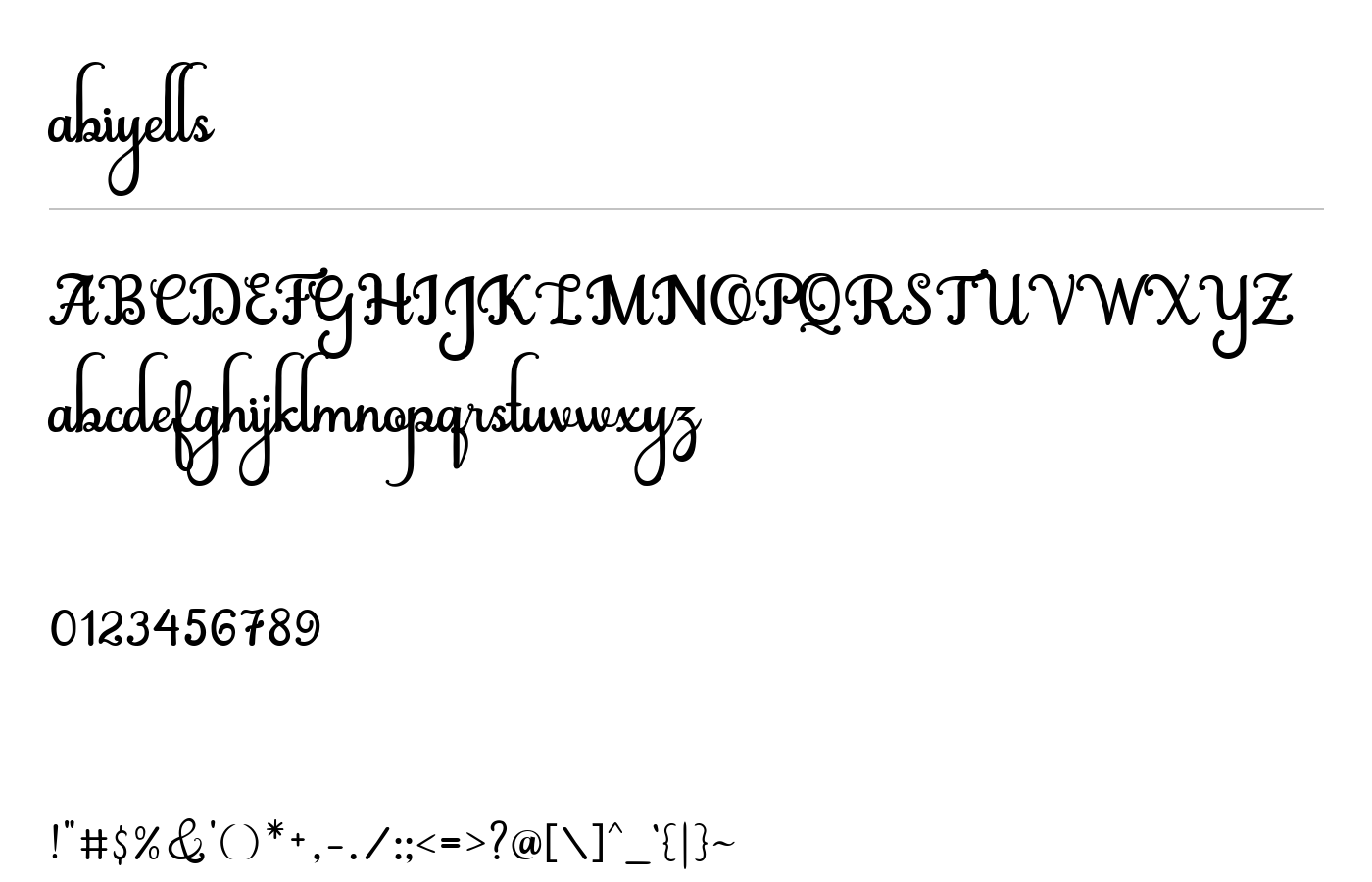
Abiyells is a decorative script font with elegant, flowing letterforms that combine cursive softness and whimsical flair, perfect for adding a stylish, handcrafted feel. Its tall x-height and moderately condensed structure make it suitable for eye-catching headlines and logos, especially in creative, feminine, or vintage-inspired designs. This font works beautifully for invitations, branding, and packaging where a touch of charm and personality is desired.
abiyells Font